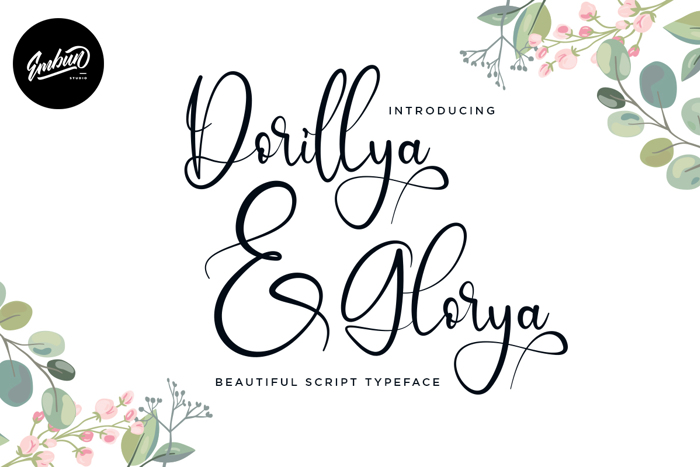
Dorillya Font
Introduce !!!
Dorillya & Glorya is a modern script calligraphy font with beautiful alternate and ligature. Suitable for your project such as Wedding Invitation, Business Card, Logo Brand, Greeting Card and many more